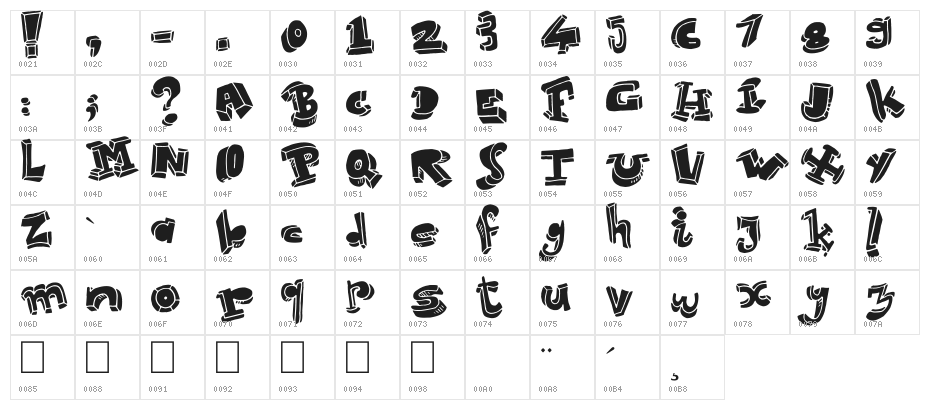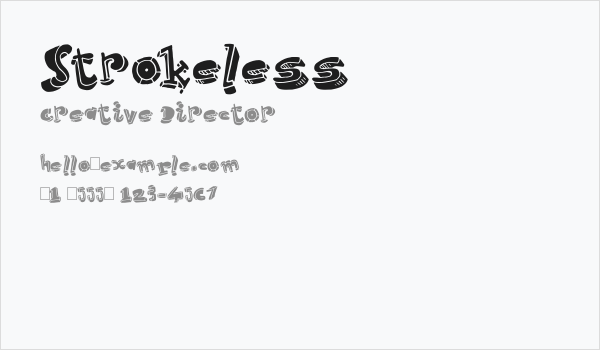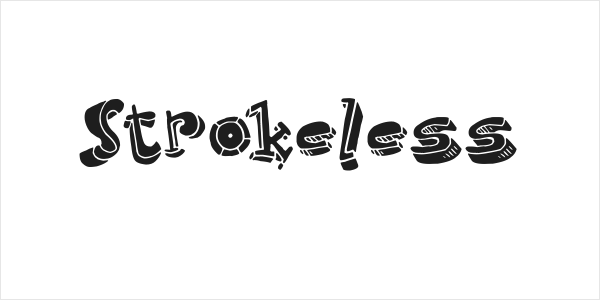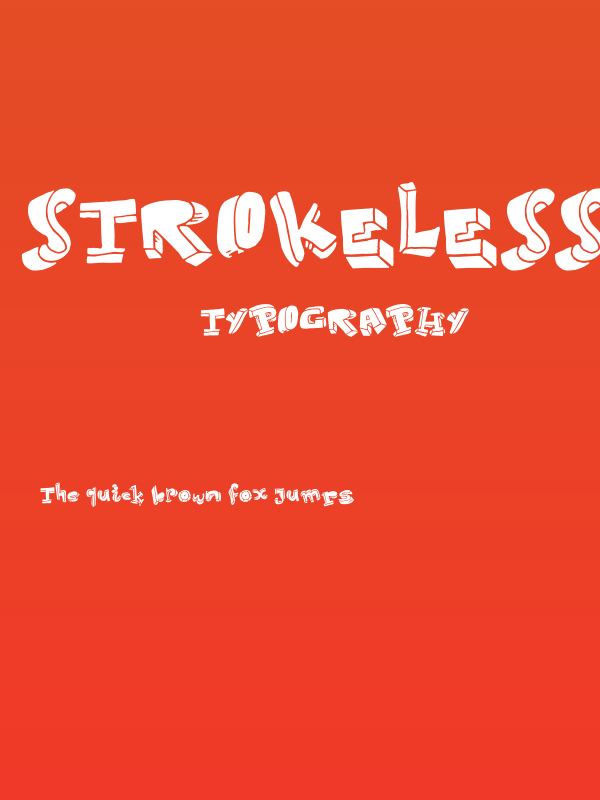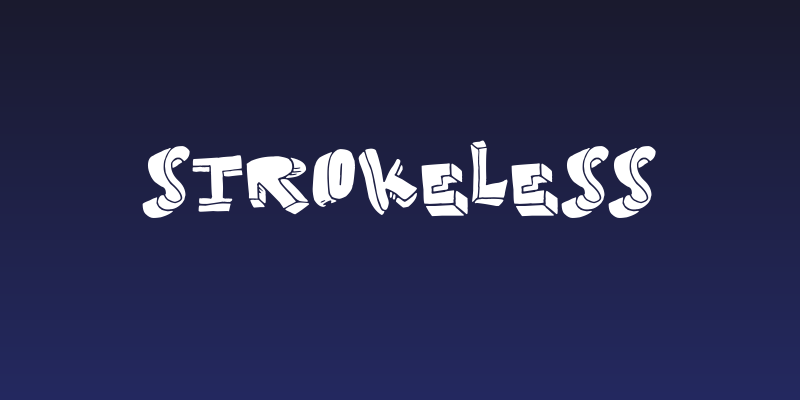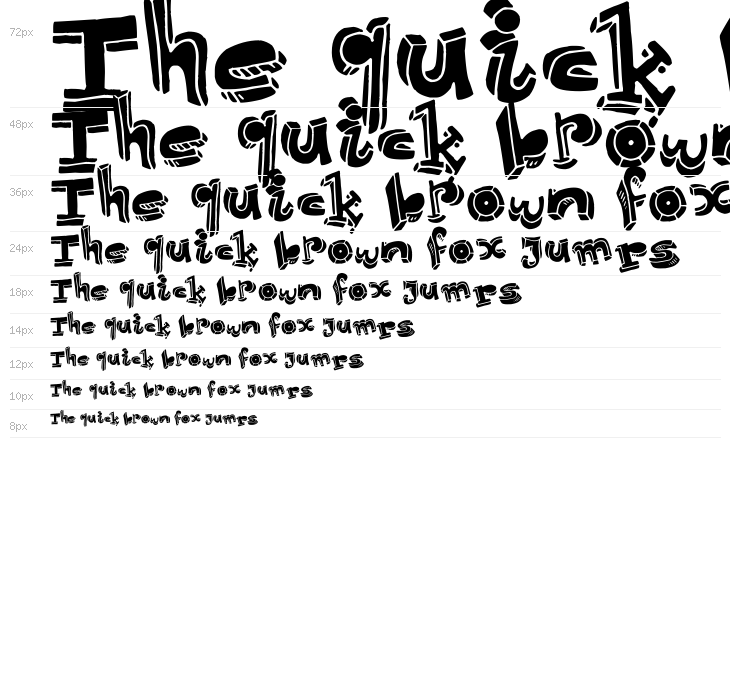
Strokeless Font
Strokeless Description
This font features a bold, playful style with a three-dimensional effect, achieved through the use of thick, shadowed strokes. The characters are highly stylized, with exaggerated curves and angles that give them a dynamic, energetic appearance. The uppercase and lowercase letters maintain a consistent design, with a slightly irregular, hand-drawn quality that adds to the font's whimsical charm. The numbers and special characters follow the same design principles, ensuring a cohesive look across all elements. This font is ideal for projects that require a fun, eye-catching typeface.
| Proposed Projects | Perfect for children's book covers, comic strips, playful branding, and event posters. |